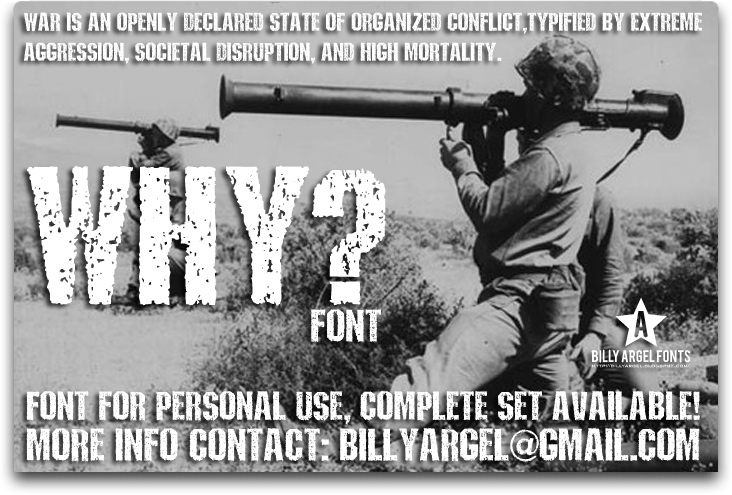
WHY by Billy Argel is a free eroded display font with tall, tightly packed capitals and a blunt industrial silhouette. Chips and pinholes roughen every broad stroke like battered ink or weathered paint.
Its grunge and industrial character suits concert posters, skate merchandise, and horror game graphics, where the damaged surface can echo distressed photography and scuffed textures. Album covers are its strongest use, since the dense capitals can turn a band name into something resembling a worn stamp pulled from an old road case.